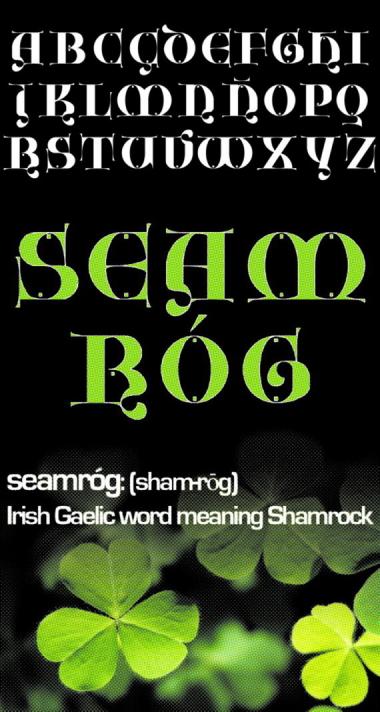
• "Seamróg" is the irish-gaelic word for "shamrock"/"clover" in english (= "trébol" in spanish). This is an gothic lombardic font mixed with uncial style (X-XIV c) -only capitals and numbers and a few other glyphs here-, all very curved in a modern way. You can find some alternates at the LC. Glad if you like it.
"Seamróg" is the irish-gaelic word for "shamrock"/"clover" in english (= "trébol" in spanish, a beautiful word, you see, who represent all in one the three leaves: "tré-" = 3 the numeral and "-bol" saying "-fol" [you can find the same root in words like "fold" or "folio"] = hoja. Ehem, sorry for the spanish lesson).
This is a gothic lombardic font mixed with uncial style (X-XIV c) -only capitals and numbers and a few other glyphs here-, all very curved in a modern way. You can find some alternative gliphs at the LC, very useful in a lot of words. Glad if you like it.
Fantastic font, hard to believe something like this can be done in small scale. 10/10
Good to see you back here and what a beautiful font, unlike anything done at fontstruct before!
Fantastic font. I love the exaggerated serifs and the very good use of the new bricks. The only slight imperfection in my mind is the sharp turn before the tails of letters such as A and N. Here is my suggestion for a smoother transition:
Beautiful uncial Gothic capitals (if I'm correct). Built on a small grid, it's a masterpiece of fontstructing. Bravo. 10/10
This is truely beautiful and how you manage this level of elegance in such a small grid is fantastic. Bravo!!!
Very Wow. I almost couldn't believe that it was such a small scale. I like the letters as they are, but following CMunk, here's my alternate for the letter A.